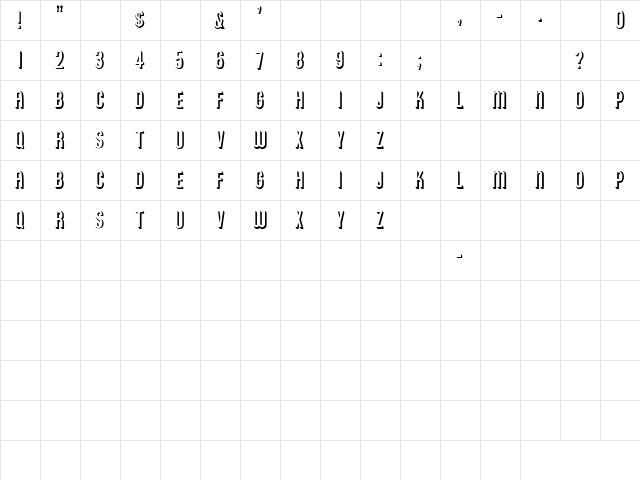
Shadow 1 Regular
Design Context for Shadow 1 Typeface
Shadow 1 is built around its visual character rather than neutral utility — its distinctive forms are designed to make an impression at display sizes.
Font Pairing: Pair with a clean neutral sans-serif for body copy to let Shadow 1's character lead without overwhelming the composition.
Pro Tip: Treat Shadow 1 as the centrepiece of your typographic hierarchy. One strong heading set in a decorative face can carry an entire layout.